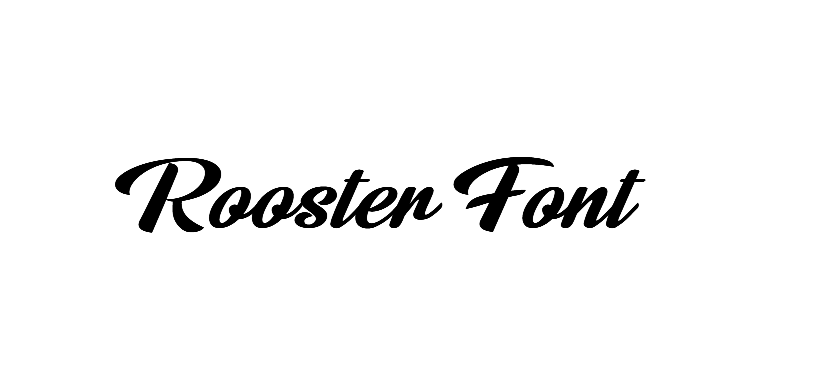
Rooster
Rooster is a calligraphy font designed by Billy Argel (2021). The letters have the smooth movement of real pen lettering, which is why even a single name looks special in it. You can download it for free and test it with your own words in the preview above.
- Designer: Billy Argel
- Glyphs: 409
- Extra characters: 104 copy-and-paste alternates (Private Use Area)
What You Can Type With Rooster
You get every letter from A to Z in both cases and all the numbers from 0 to 9, which means Rooster can handle full sentences, dates and prices. Punctuation is limited, so look at the character map if you need a specific symbol. Thanks to its accented letters, it also works for Spanish, French, German, Portuguese and Italian, not just English.
How to Use the Alternate Letters in Rooster
Where Rooster Works Best
Designers usually reach for fonts like Rooster when they're making wedding invitations, certificates and elegant quotes. Script fonts read best in short bursts, so keep it to names, titles and one-line quotes. Skip all caps: script capitals are drawn to start a word, not to fill one.
Who designed Rooster font?
Does Rooster support accented letters?
Yes. Rooster includes the accented letters needed for Spanish, French, German, Portuguese and Italian, so it works for more than just English.